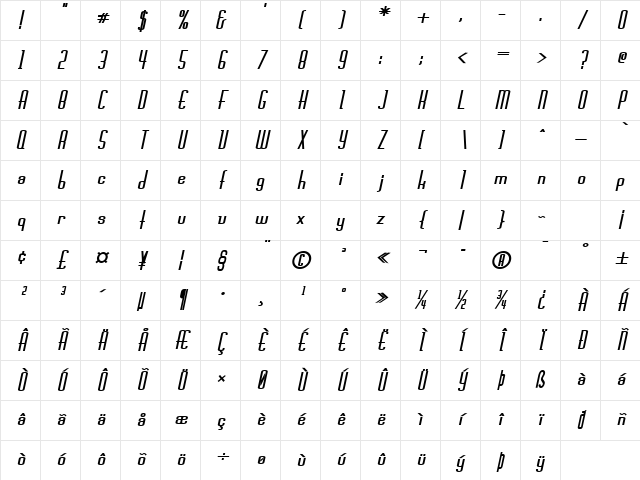
Devon Bold Italic Free Font
Devon Bold Italic
Design Context for Devon
Devon is a composed and adaptable typeface that performs quietly and consistently across a wide range of design contexts. The slanted form adds forward momentum and visual energy. Its bold stroke weight gives it real presence on the page.
Pro Tip: Use Devon for emphasis, pull quotes, and subheadings where its slanted energy can add rhythm to the layout.